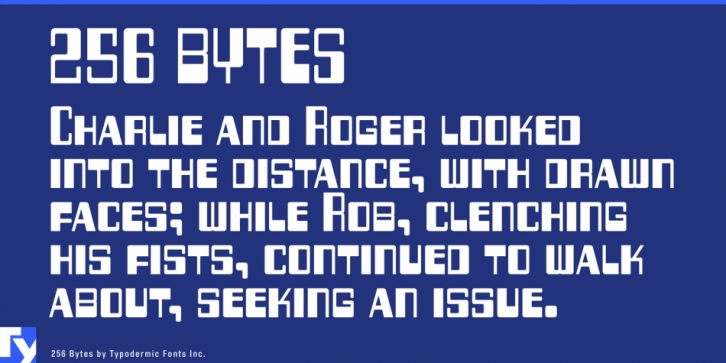
256 Bytes is a pixel font published by Typodermic Fonts Inc.
256 Bytes is a font I created in the late 1990s based on the logotype for the MITS Altair 8800 personal computer. You can see one behind Maurice’s desk in series 3 of the britcom, The IT Crowd. I recently revamped 256 Bytes with new blah blah blah and OpenType yadda yadda…
Font Family: 256 Bytes Regular